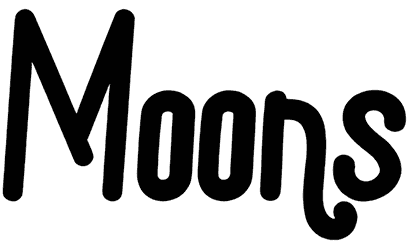
Moons Font
You are welcome to use moons font from your browser since it has an elegant and spacey look. It is possible to create comic books and science fiction cartoons for children using this playful handwritten font as creatively as possible. There is no doubt that this cartoon font should also be included in the priority list of fonts that are suitable for children.